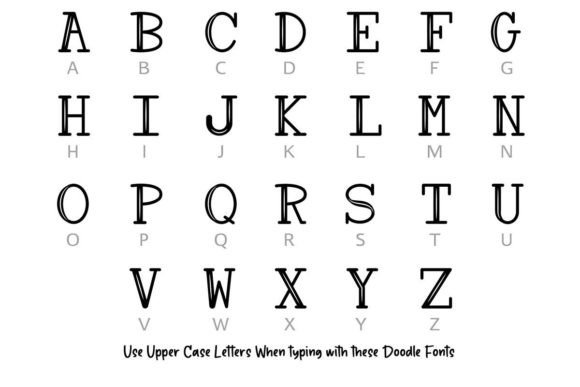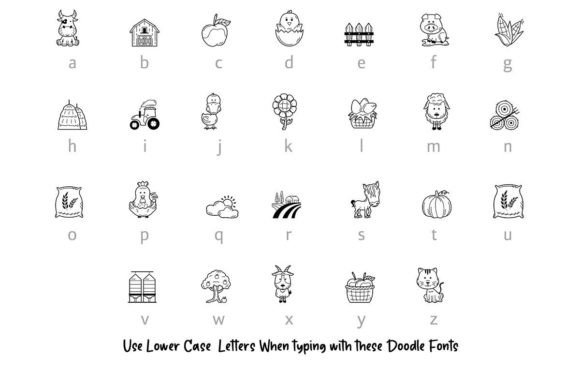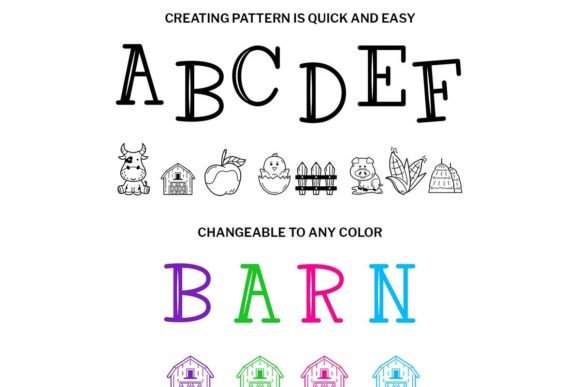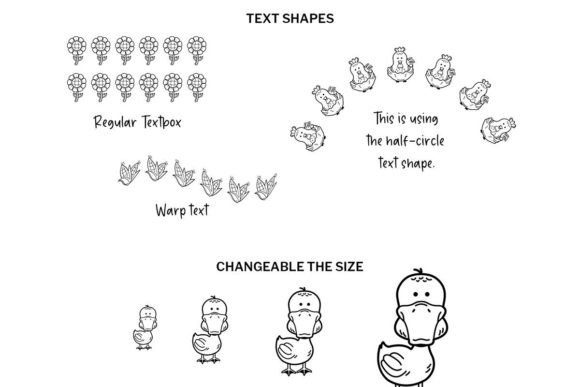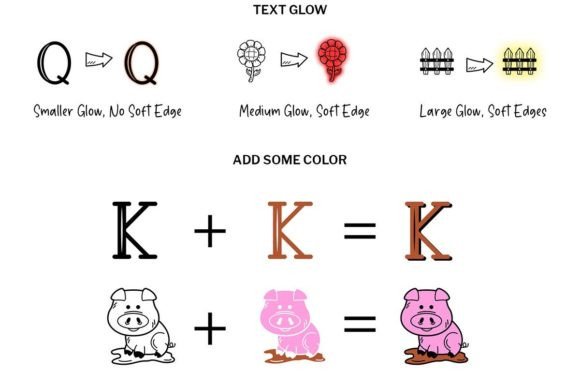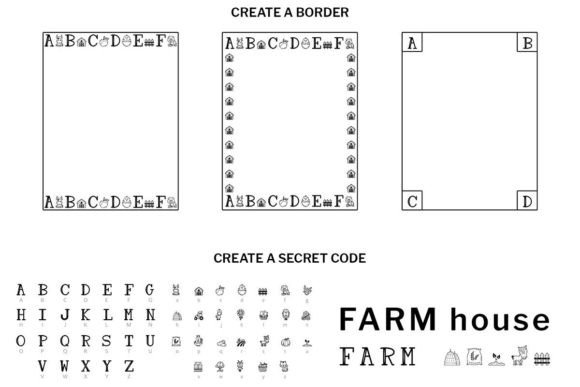
Introducing Farmhouse Font: The Playful and Adorable Decorative Font for Crafty Projects
Are you a designer, crafter, or DIY enthusiast looking for a font that can add a touch of playfulness and charm to your projects? Look no further than Farmhouse Font! This delightful decorative font is perfect for a wide range of craft projects, designs, planners, diaries, activity books, and more. In this article, we’ll dive into the world of Farmhouse Font and explore its features, uses, and benefits.
Farmhouse Font is a carefully crafted decorative font that exudes a sense of playfulness and adorability. Its unique design makes it an excellent choice for anyone looking to add a personal touch to their projects. Whether you’re creating a handmade card, a DIY planner, or a custom journal, Farmhouse Font is sure to impress.
- Playful and Adorable Design: Farmhouse Font boasts a charming and whimsical design that’s perfect for crafty projects.
- Versatility: This font is incredibly versatile and can be used for a wide range of projects, from designs and planners to diaries and activity books.
- Ease of Use: Farmhouse Font is easy to read and works well in various sizes, making it perfect for both digital and print projects.
- Customizable: You can use Farmhouse Font to create unique and personalized projects that reflect your style and personality.
Uses of Farmhouse Font
Farmhouse Font is an excellent choice for various crafty projects, including:
- Handmade Cards and Invitations: Add a personal touch to your cards and invitations with Farmhouse Font.
- DIY Planners and Journals: Create custom planners and journals that are both functional and visually appealing.
- Crafty Activity Books: Design engaging activity books for kids or adults that feature Farmhouse Font.
- Custom Stationery and Gift Tags: Use Farmhouse Font to create personalized stationery and gift tags.
Benefits of Using Farmhouse Font
By incorporating Farmhouse Font into your projects, you’ll enjoy several benefits, including:
- Unique and Personalized Designs: Farmhouse Font helps you create one-of-a-kind projects that reflect your personality and style.
- Time-Saving: With Farmhouse Font, you can quickly and easily create professional-looking projects without spending hours on design.
- Consistency: Use Farmhouse Font across multiple projects to establish a consistent brand or personal style.
To get the most out of Farmhouse Font, follow these tips:
- Experiment with Sizes and Colors: Try out different sizes and colors to find the perfect combination for your project.
- Pair with Other Fonts: Combine Farmhouse Font with other fonts to create visually appealing and dynamic designs.
- Use in Digital and Print Projects: Farmhouse Font works well in both digital and print projects, so don’t be afraid to experiment.
Farmhouse Font is a versatile and adorable decorative font that’s perfect for crafty projects, designs, planners, diaries, and more. Its playful and charming design makes it an excellent choice for anyone looking to add a personal touch to their creations. With its ease of use, customizability, and range of uses, Farmhouse Font is sure to become a favorite among designers, crafters, and DIY enthusiasts.